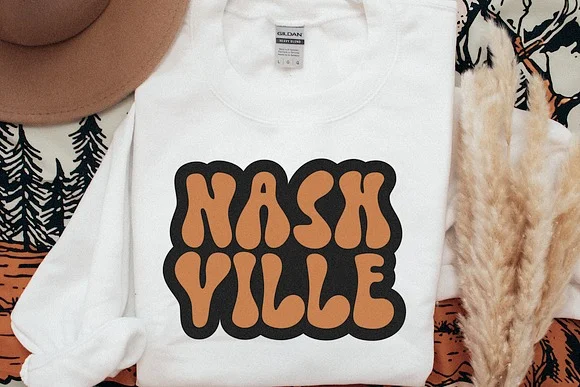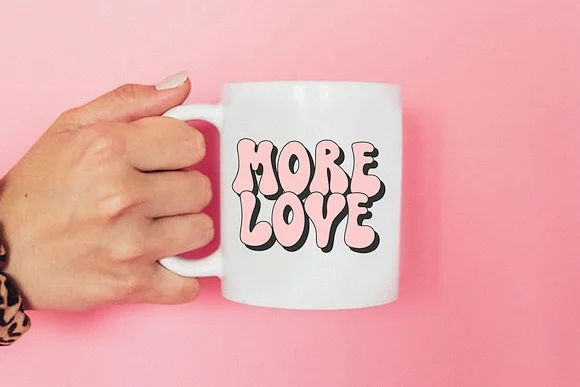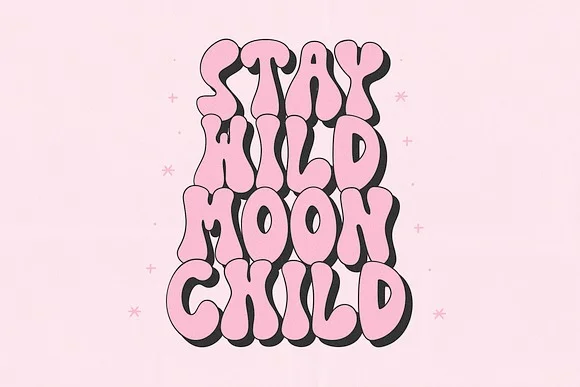
Introducing the Premium Stay Funky Retro Font, a vibrant and stylish typeface that captures the essence of nostalgia while adding a modern twist to your design projects. This font is meticulously crafted to evoke the playful spirit of the retro era.
Featuring bold curves and unique character shapes that make it perfect for a variety of applications, from eye-catching posters to trendy social media graphics. With its versatile design, the Stay Funky font is ideal for both personal and commercial use
The Premium Stay Funky Retro Font is not just about aesthetics; it also offers exceptional readability and versatility. Available in multiple weights, this font allows you to create dynamic typographic compositions that can adapt to any context.
Whether you’re designing a logo, a website, or promotional materials. Its unique character set includes special symbols and ligatures, providing you with endless possibilities for customization. Elevate your design game and make a lasting impression with the place where creativity meets quality in every letter.